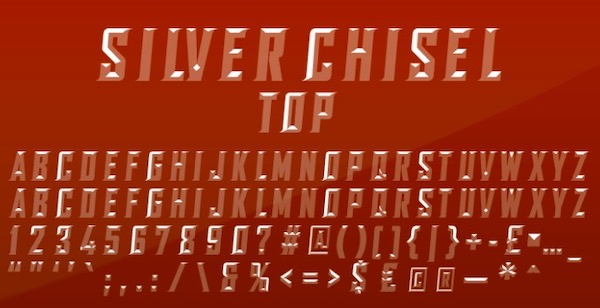
SILVER CHISEL Font family has 3 standout styles including Bevel, Outline, and Regular. And your designs will appear impression and appealing in the eyes of clients if you use this typeface. Silver Chisel’s unique combinations give you overview control in producing stylish designs with beveled, 3D, or outline.
It has a modern and fancy font look, is perfect for branding, packagings, wedding invitations, lettering compositions, logotype creation, book design cover, cards, fashion projects, magazines typography, posters, etc. This font family can be layered in different methods to make a fancy title effects that are used popularly in 3D logo as well as poster design.
SILVER CHISEL Display Font
Designed by: Antonio Cerri